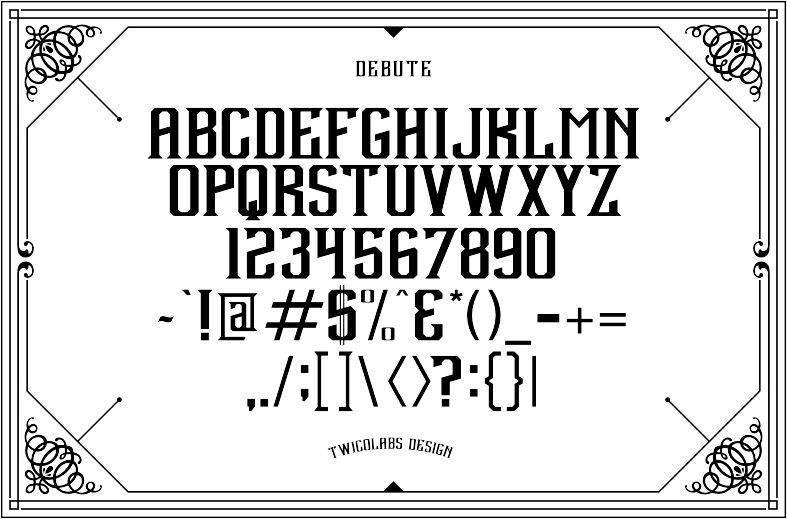
Debute is a free retro display font with the tall, compressed bearing of vintage athletic and poster lettering. Its capitals combine broad vertical strokes with sharply cut corners, pointed joins, and narrow interior gaps, producing a rigid silhouette with a few dramatic zigzags.
As a period-style team emblem, it gives sports branding and merchandise the force of gymnasium graphics. The same angular construction suits music posters and game packaging, especially when the artwork draws on pulp, arcade, or tournament themes. Sports logos are its most convincing use, since the narrow forms and notched details resemble uniform lettering.
Debute